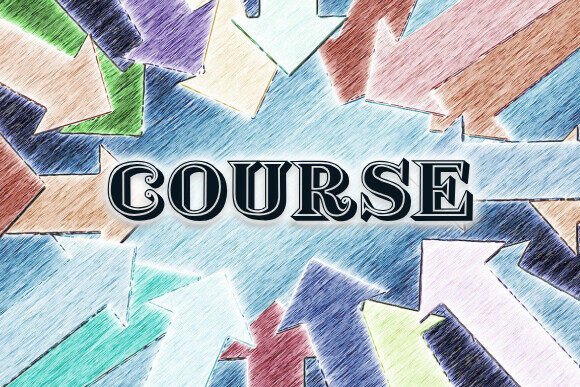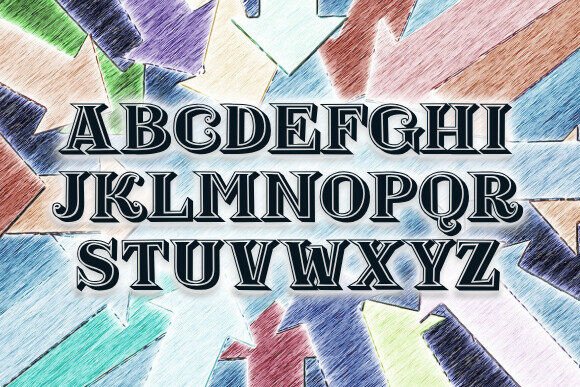
Combinations Font: Elevate Your Designs with Stunning 3D Text
Are you tired of using the same old fonts for your designs? Look no further! Introducing Combinations, an awesome 3D font that will add a touch of magic to any of your creations. Whether you’re working on posters, flyers, or t-shirts, this font is sure to make your designs stand out.
What Makes Combinations Font So Special?
Combinations font is a game-changer for designers and crafters. Its unique 3D effect gives it a stunning appearance that will grab attention and leave a lasting impression. The font is highly versatile, making it perfect for a wide range of applications, from advertising and marketing materials to fashion and lifestyle designs.
Key Features of Combinations Font
- Stunning 3D Effect: The font’s 3D effect gives it a realistic and eye-catching appearance that will elevate your designs.
- Highly Versatile: Use Combinations font on posters, flyers, t-shirts, and any other design project that requires bold and attention-grabbing text.
- Unique and Creative: Combinations font is a one-of-a-kind font that will add a touch of creativity and originality to your designs.
- Experiment with Different Sizes and Colors: Combinations font looks great in a variety of sizes and colors. Experiment with different combinations to find the one that works best for your design.
- Pair it with Other Fonts: Combinations font pairs well with a variety of other fonts. Try pairing it with a sans-serif font for a bold and modern look.
- Use it for Headlines and Titles: Combinations font is perfect for headlines and titles. Use it to add a touch of drama and flair to your designs.
Benefits of Using Combinations Font
There are many benefits to using Combinations font in your designs. Here are just a few:
- Increased Visibility: Combinations font is designed to grab attention. Use it to make your designs stand out in a crowded marketplace.
- Improved Brand Recognition: A unique and memorable font like Combinations can help to improve brand recognition and build a strong visual identity.
- Enhanced Creativity: Combinations font is a versatile and creative font that can help to inspire new ideas and enhance your design workflow.
Who Can Benefit from Using Combinations Font?
Combinations font is perfect for a wide range of designers and crafters, including:
- Graphic Designers: Combinations font is a great addition to any graphic designer’s toolkit. Use it to create stunning posters, flyers, and other marketing materials.
- Fashion Designers: Combinations font is perfect for fashion designers who want to add a touch of glamour and sophistication to their designs.
- Crafters and Makers: Combinations font is a great choice for crafters and makers who want to add a professional touch to their handmade products.